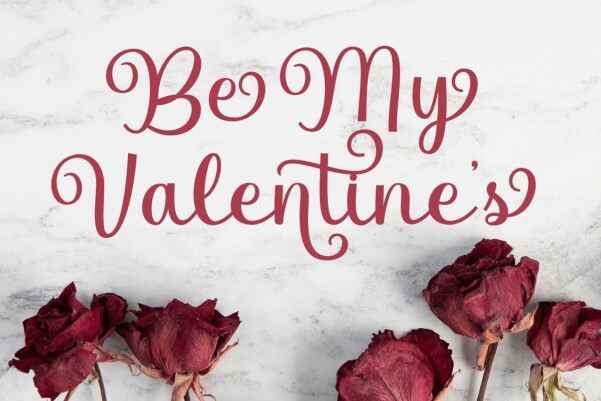
Soulmate Ladies Font
Soulmate Ladies Font is a Luxurious Calligraphy Script Font. It’s perfect for branding, wedding invitations, photography, Neon Sign, bloggers, logos, greeting cards, Logo, Quotes, posters and more.